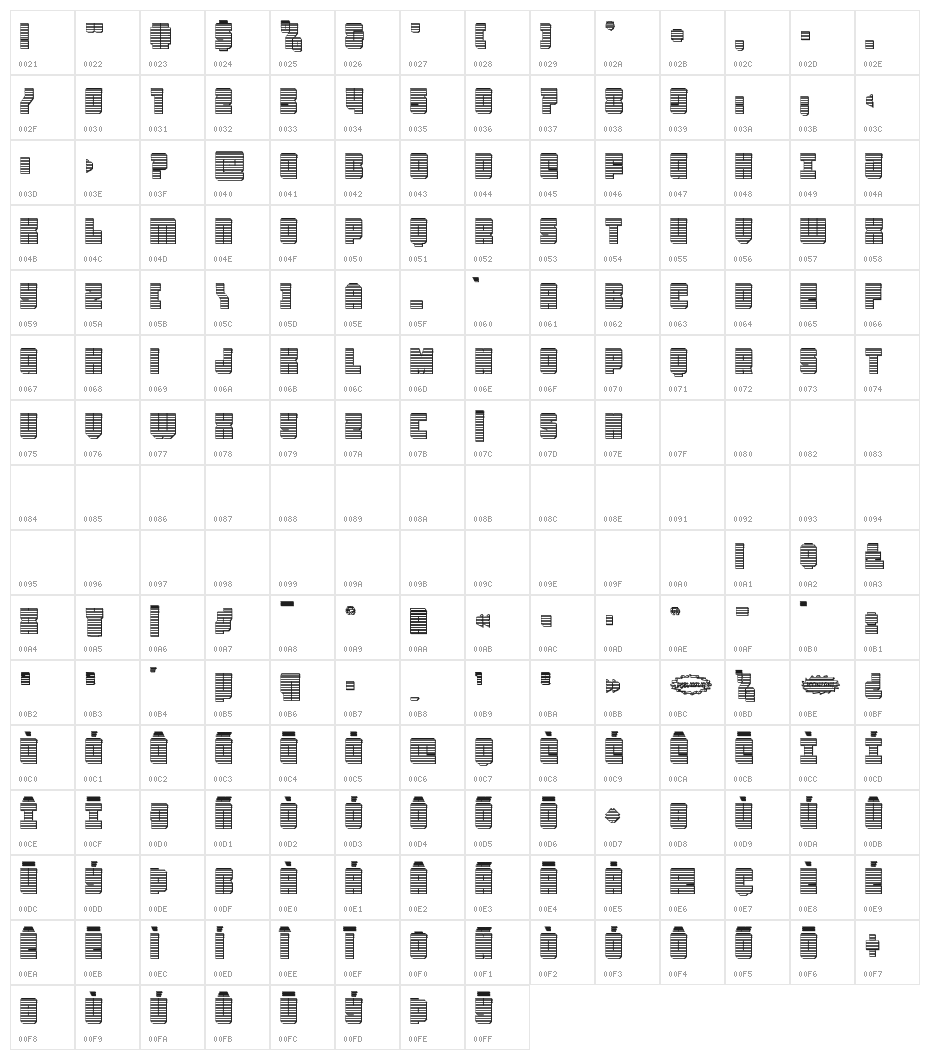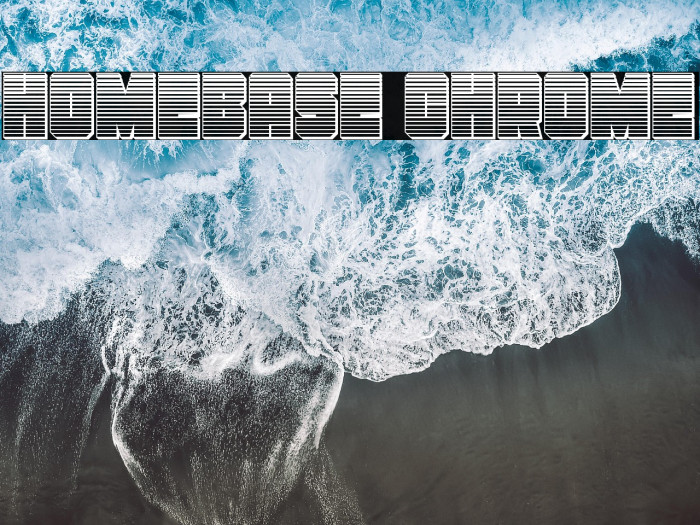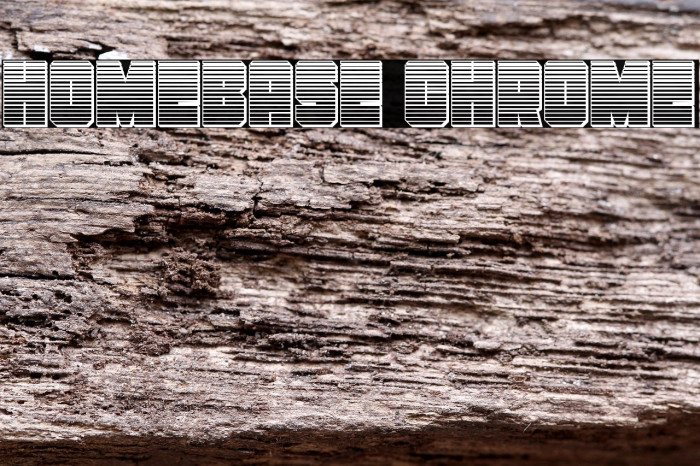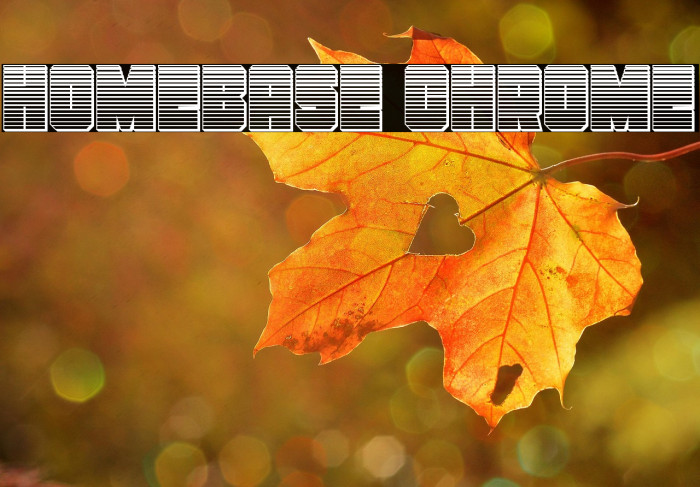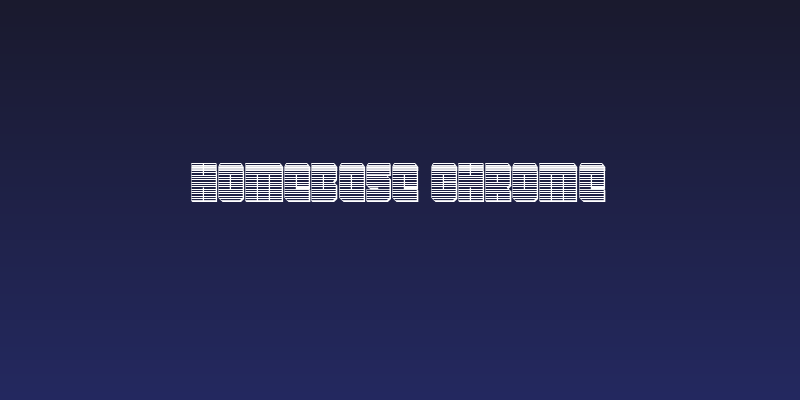
Homebase Chrome Font
Homebase Chrome Description
This font features a bold, geometric design with a distinct three-dimensional effect created by horizontal lines running through each character. The uppercase and lowercase letters, as well as numbers and special characters, maintain a consistent blocky structure that gives a sense of depth and solidity. The font's unique style is reminiscent of retro digital displays or futuristic architecture, making it stand out with its eye-catching appearance. The uniformity in line thickness and spacing contributes to a cohesive look, while the angular edges and straight lines emphasize its modern aesthetic.
Proposed ProjectsIdeal for projects needing a futuristic or retro digital look, such as tech branding, video game titles, or sci-fi themed posters.